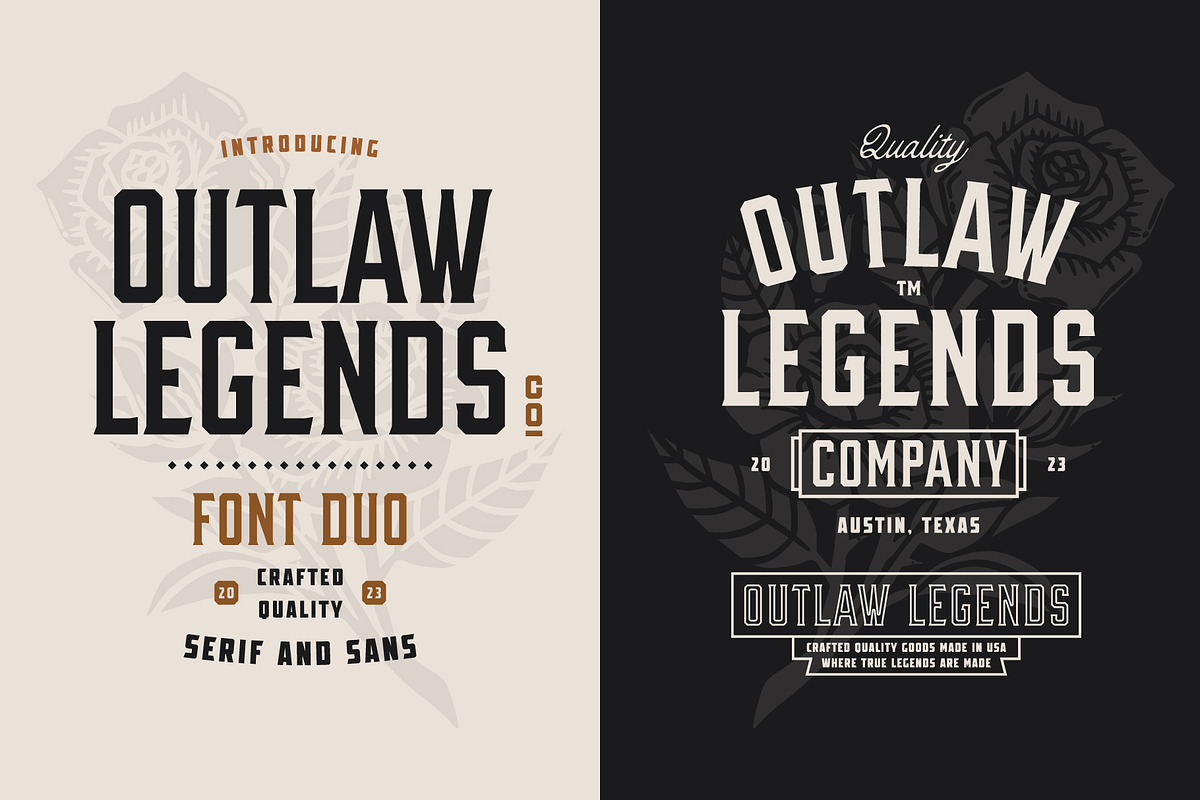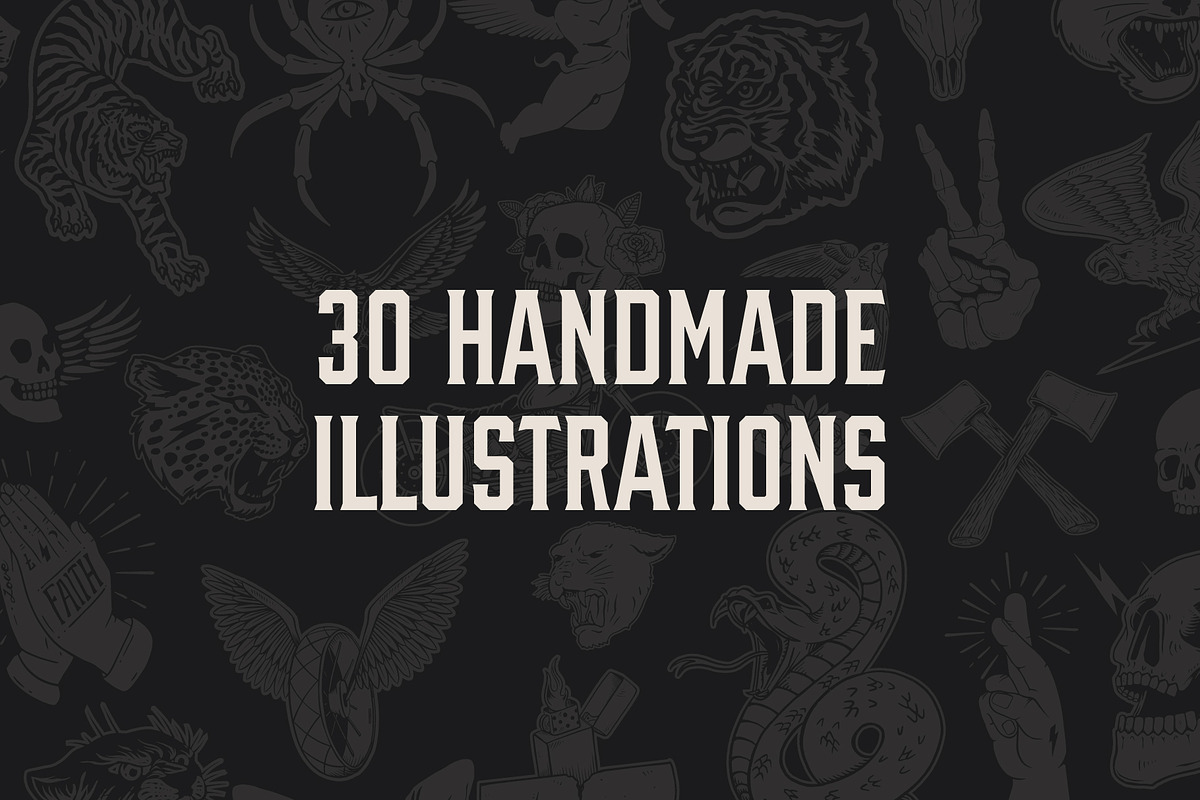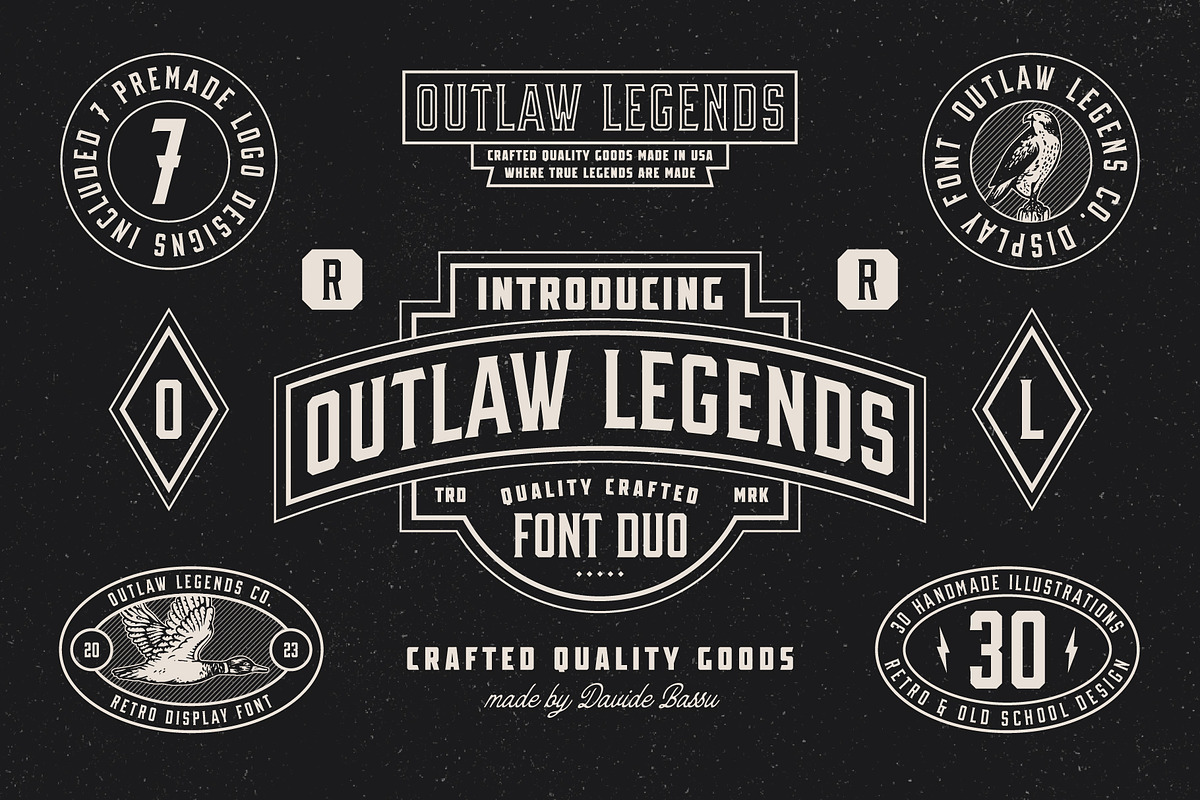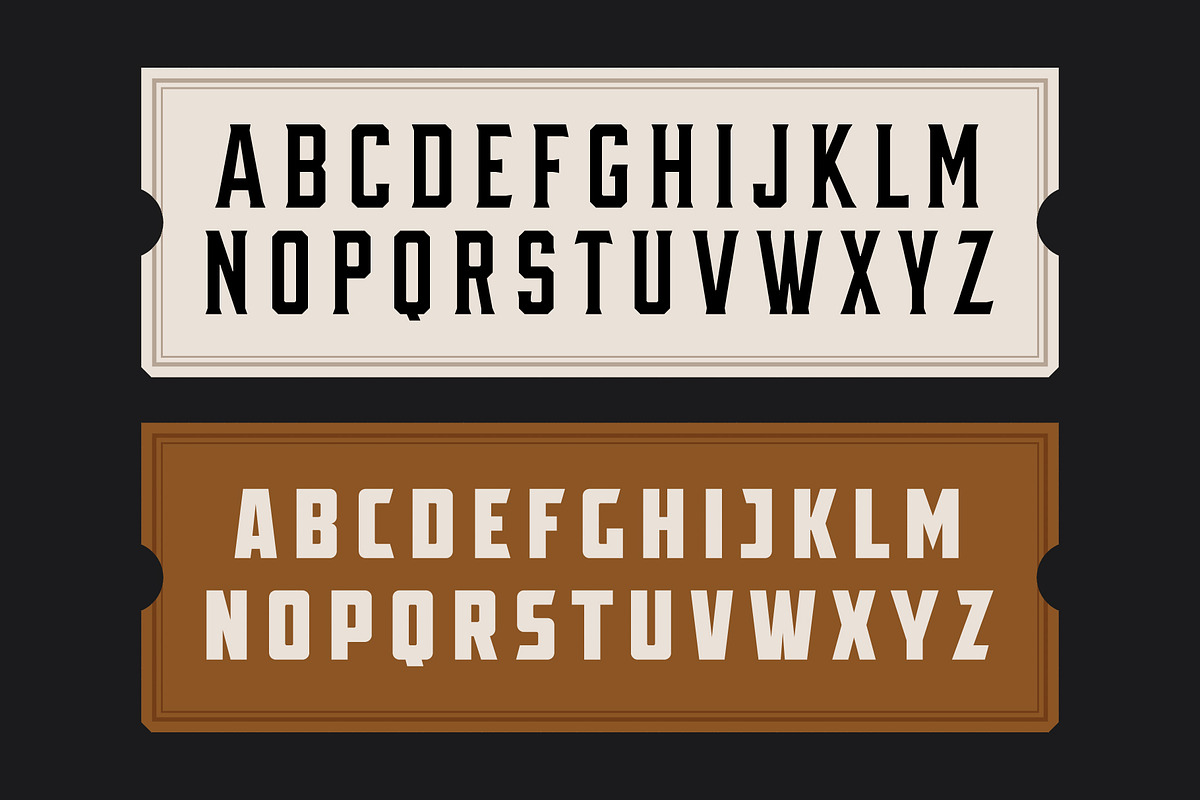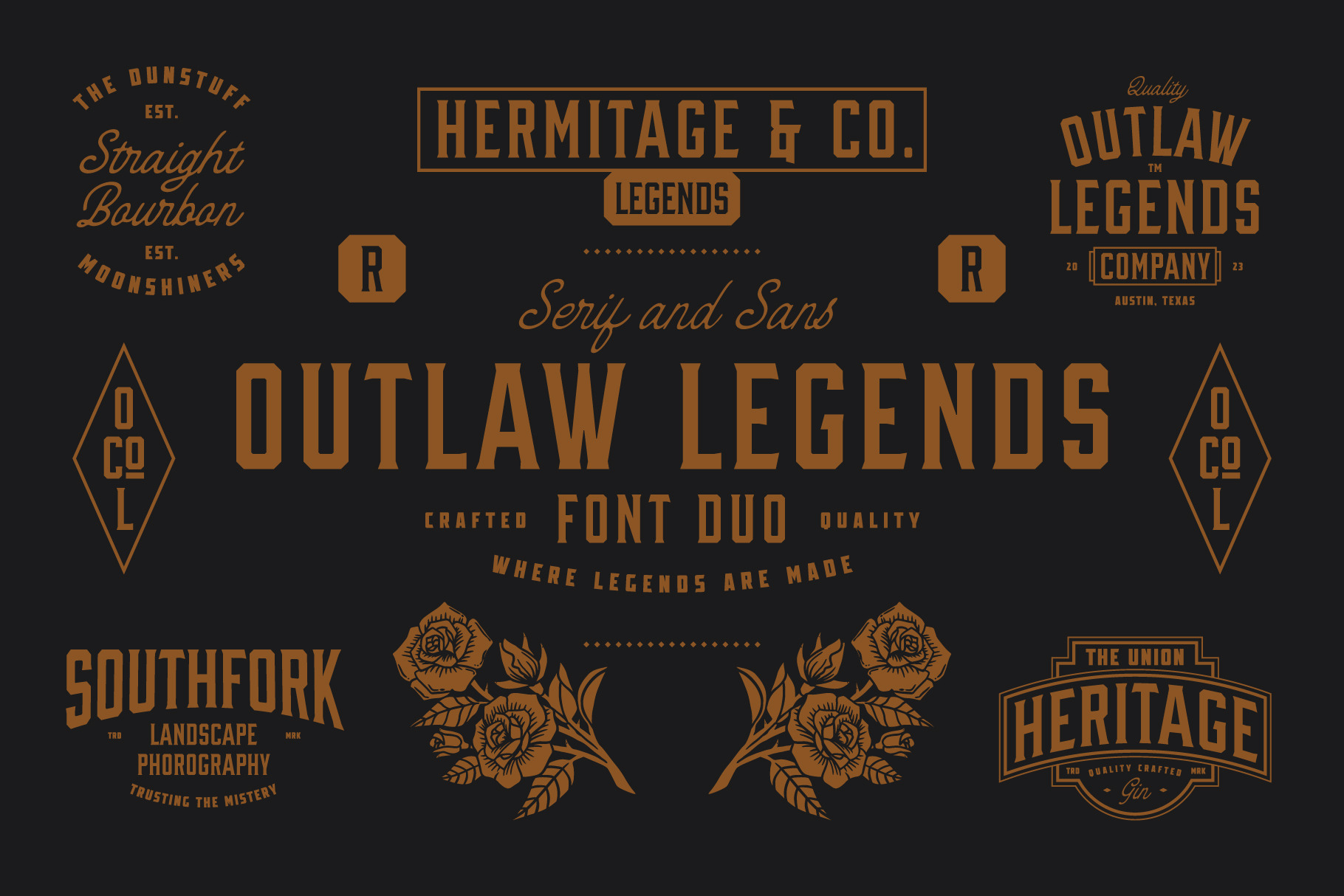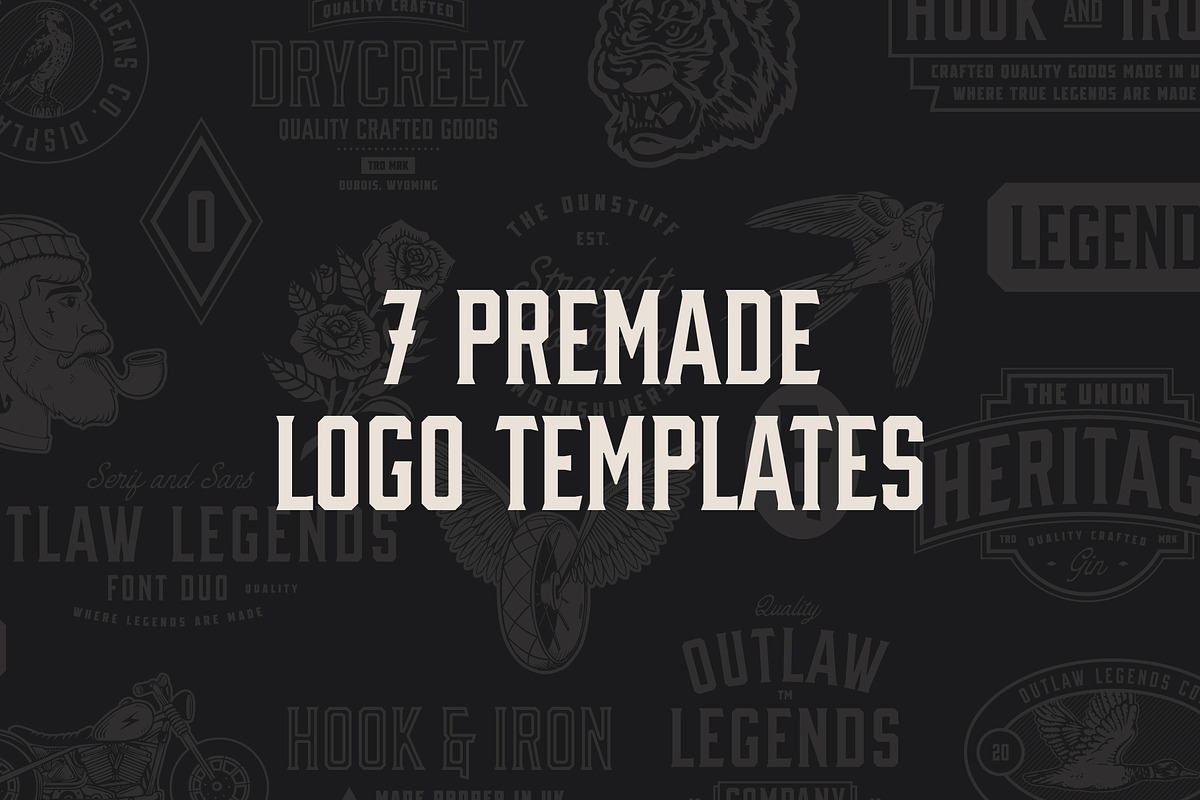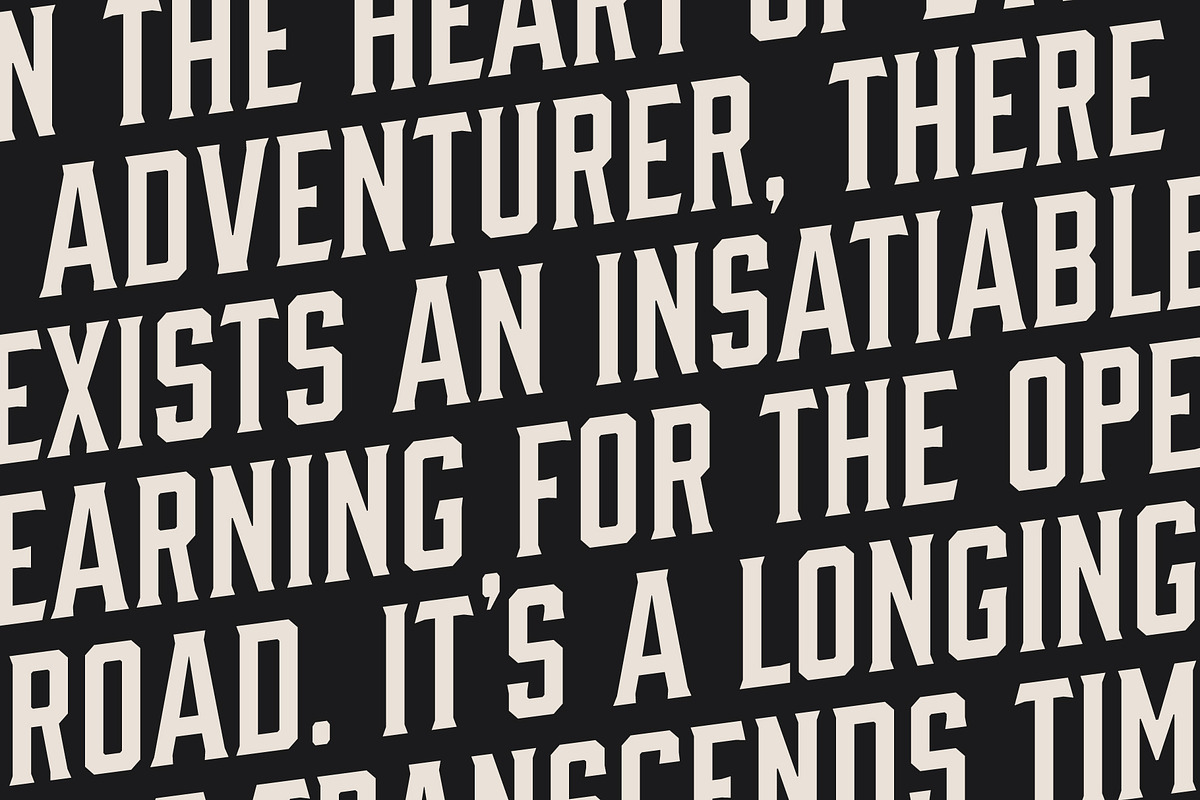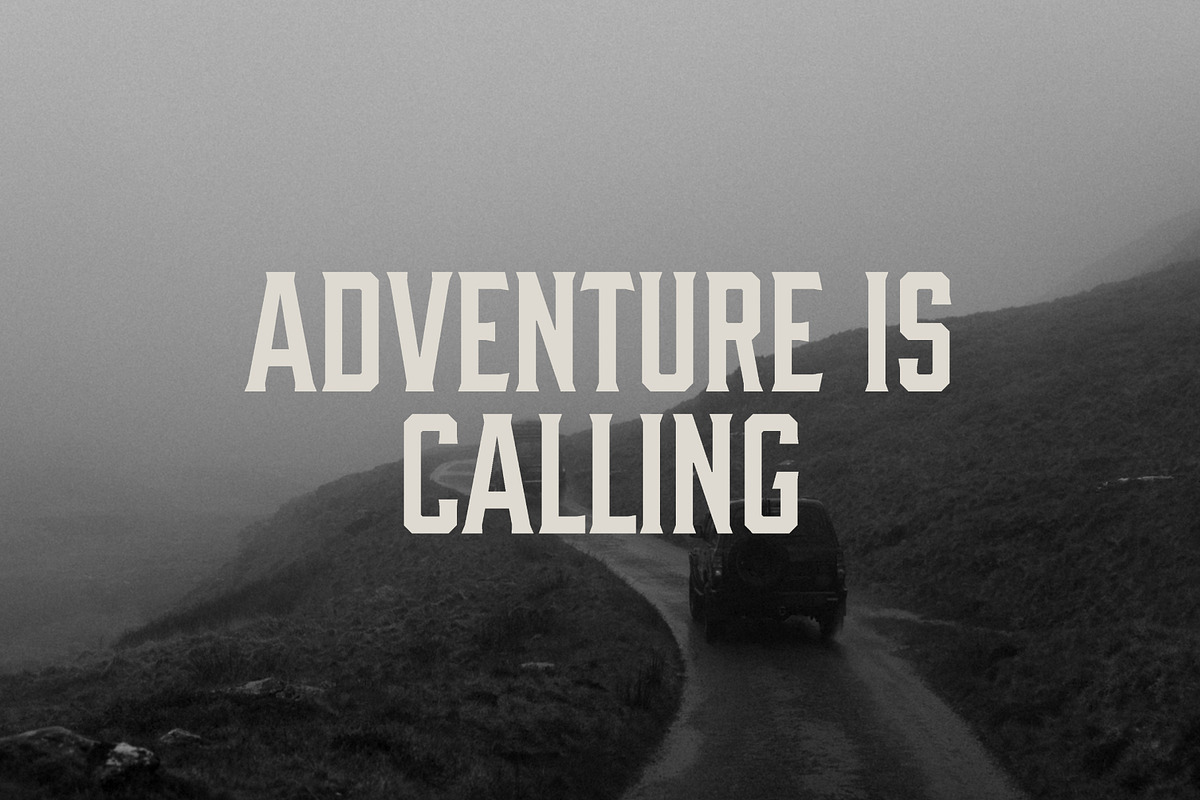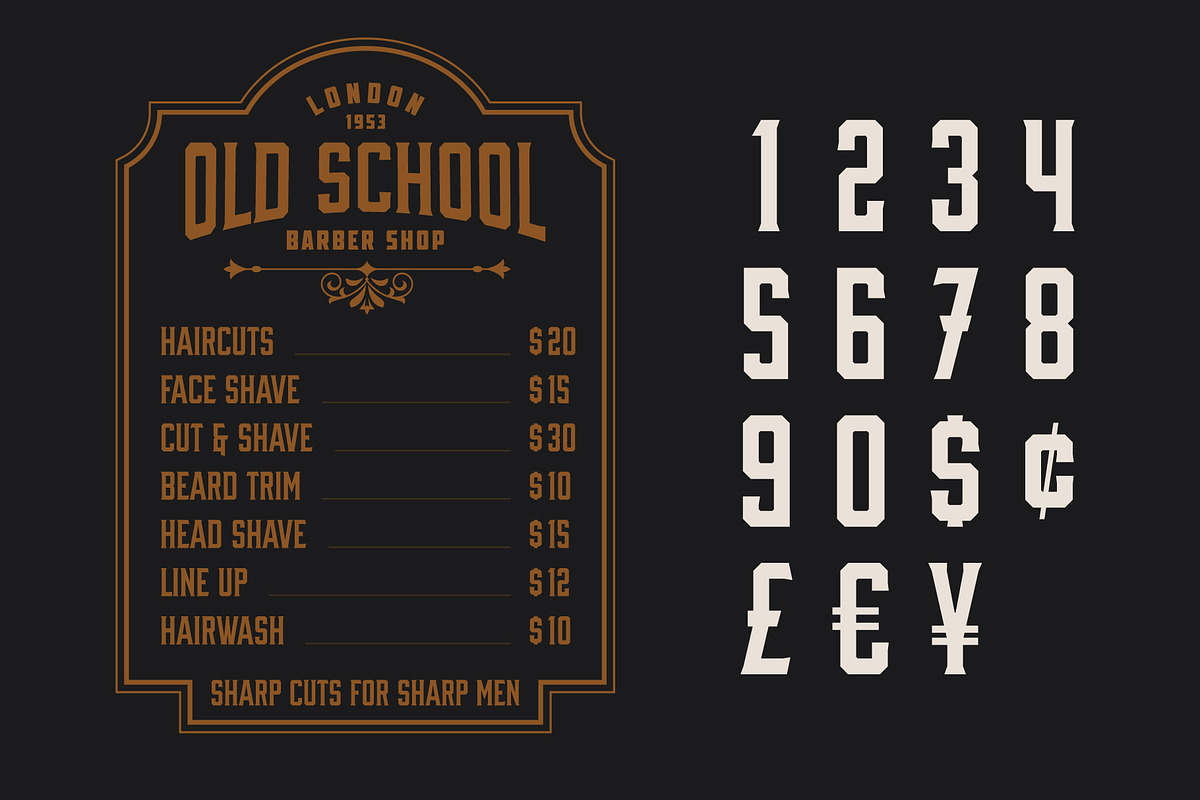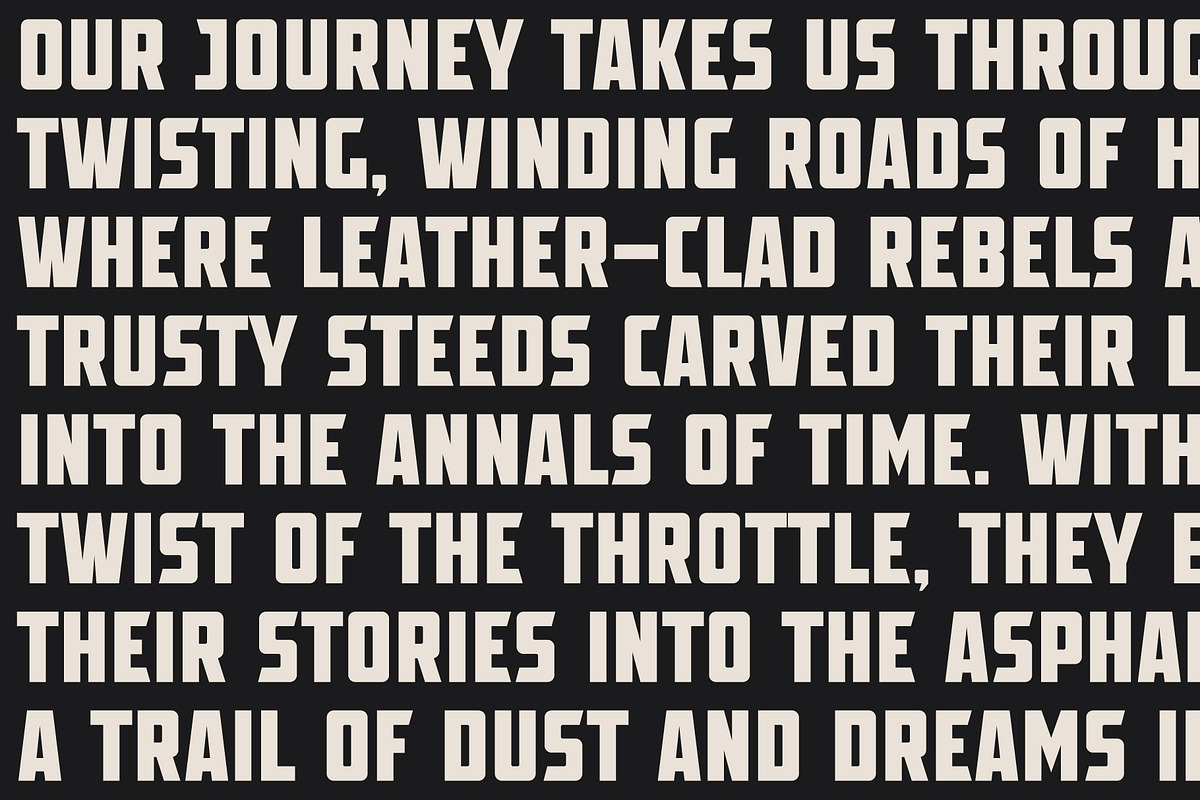
OUTLAW LEGENDS Font Duo + Extra
Introducing the Outlaw Legends Font Duo - a captivating blend of a Serif font inspired by the industrial era, and a sleek and retro sans.
Perfect for branding, logos, t-shirt designs, and more.